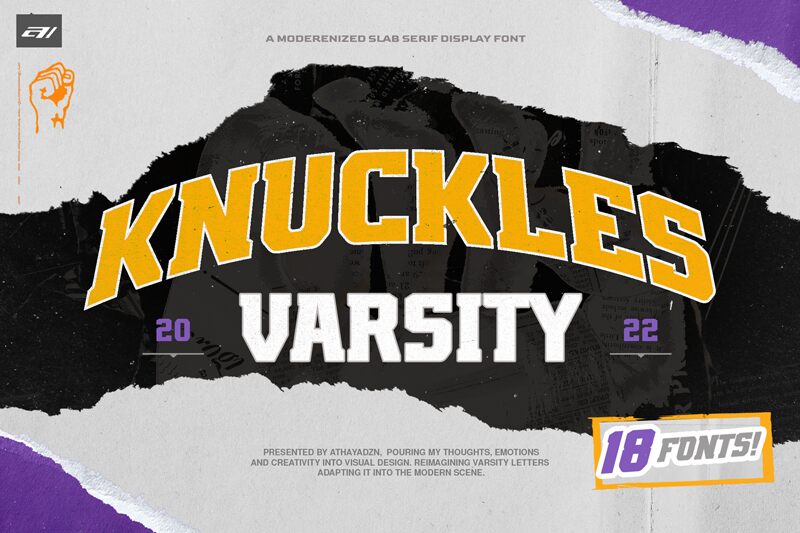
AZN Knuckles Trial Italic
AZN Knuckles Italic is a display font that embodies the bold, old-school spirit of its designer, Athaya. Its semi-condensed width and bold weight make it perfect for projects that demand attention and authority. Use it to create striking vintage posters, eye-catching logos or impactful product packaging. With its unique style and unforgettable personality, AZN Knuckles Italic adds a touch of rebelliousness to any design project. Whether you're creating an edgy fashion brand or a daring music festival, this font will help you convey your message with confidence and style.